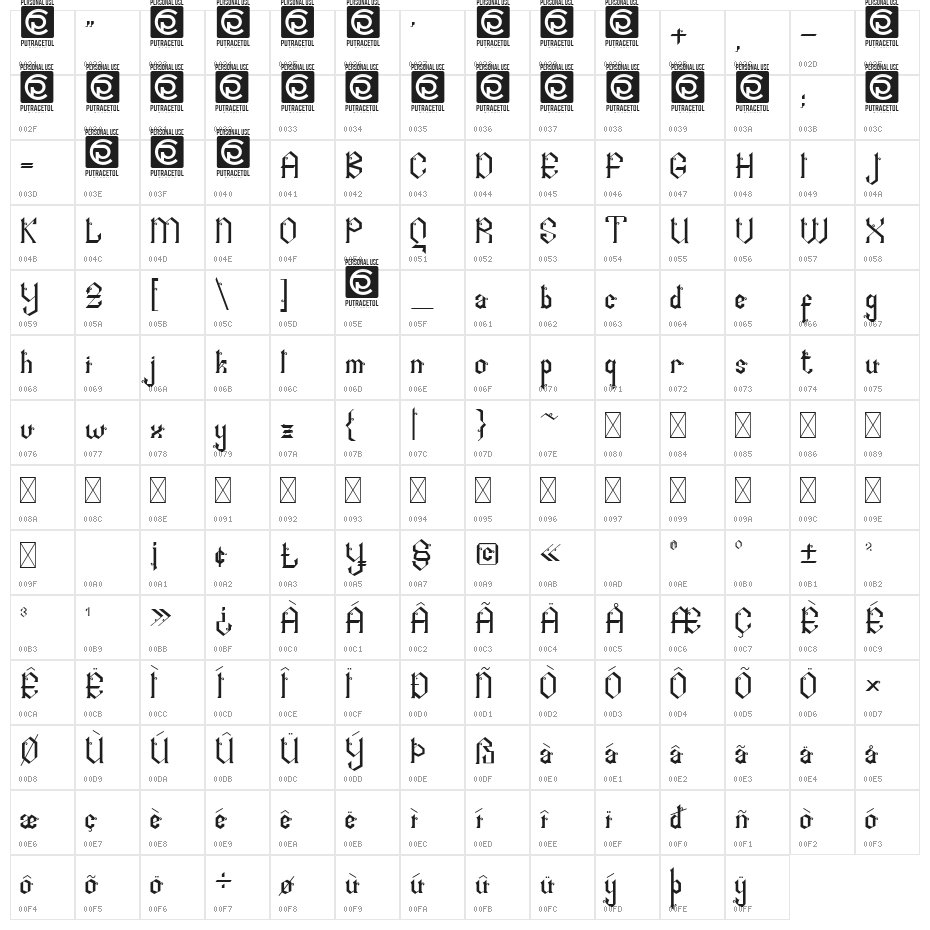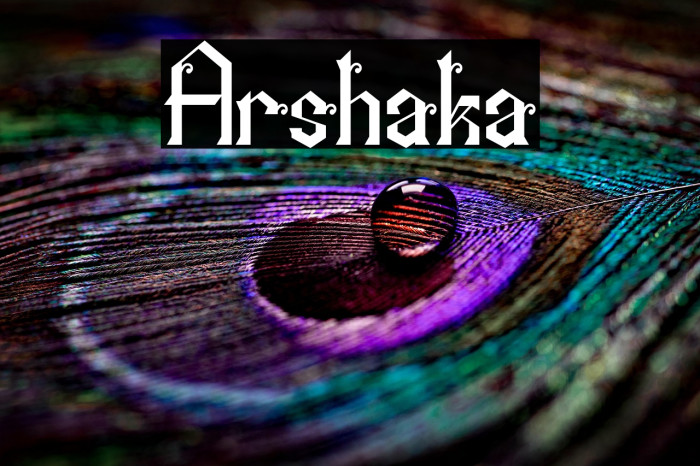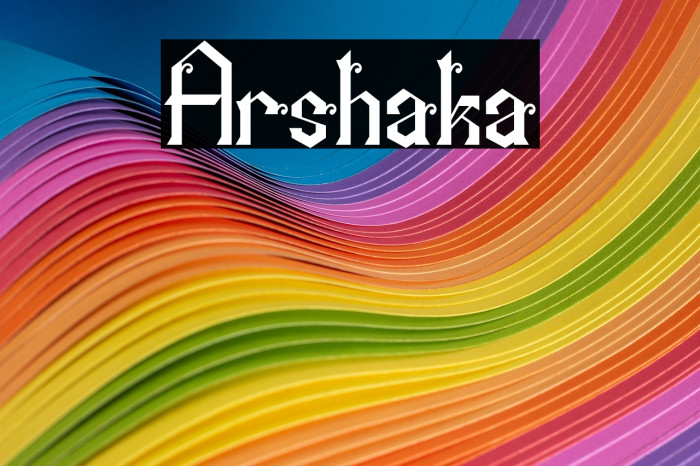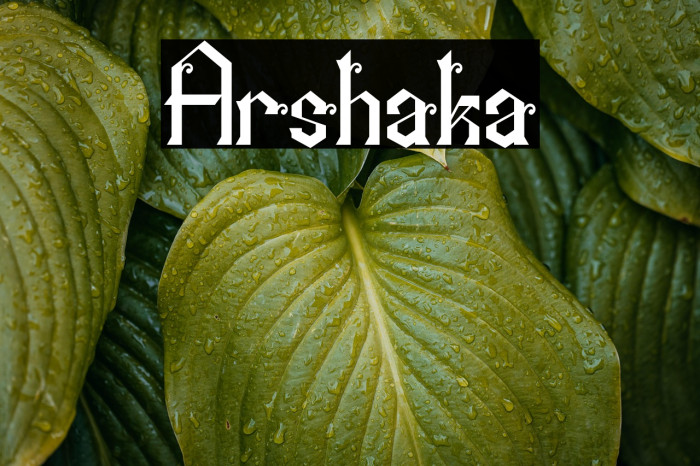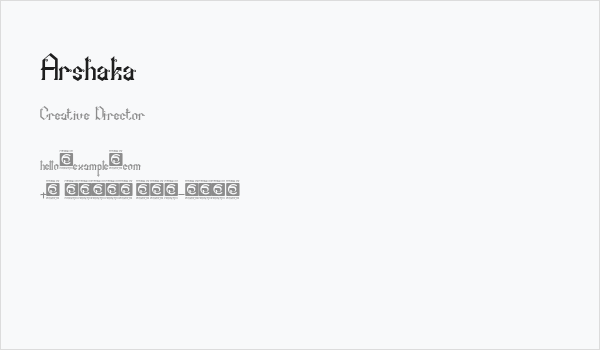
Arshaka Font
Arshaka Description
This font features a bold and striking design, characterized by its angular and geometric shapes. The uppercase letters exhibit a strong presence with sharp edges and unique embellishments that give it a distinct, almost medieval appearance. The lowercase letters maintain the same angular style, providing consistency throughout the typeface. The numerals and special characters are designed to match the overall aesthetic, ensuring a cohesive look. This font's intricate details and bold strokes make it stand out, ideal for projects that require a dramatic and eye-catching typeface.
A bold, angular font with a medieval-inspired design from Regular fonts.
- Proposed Projects: Ideal for posters, logos, branding, and any design that requires a bold, dramatic typeface.